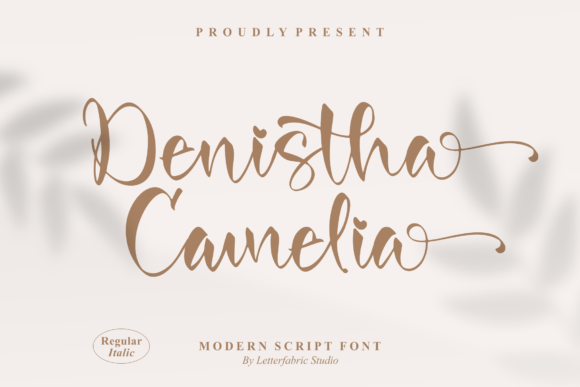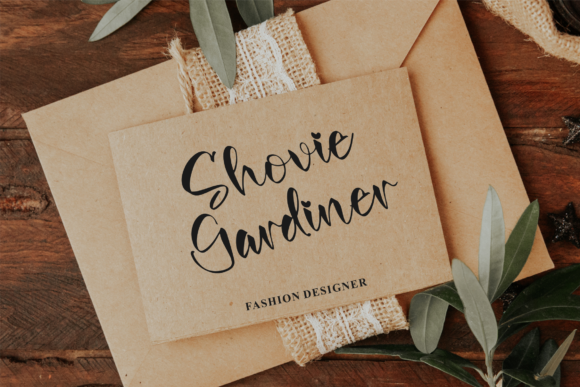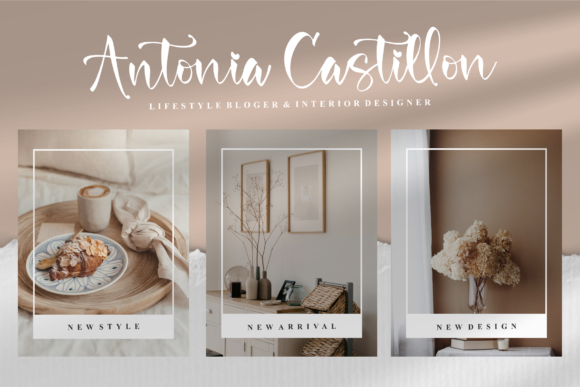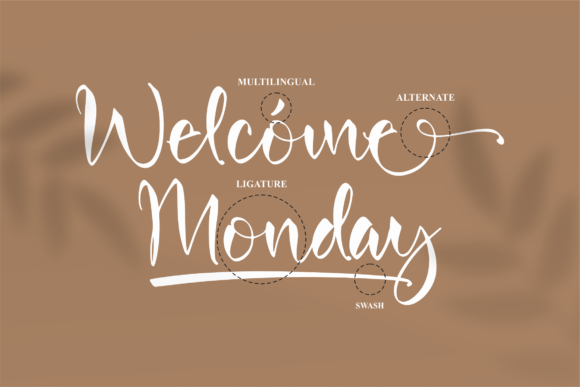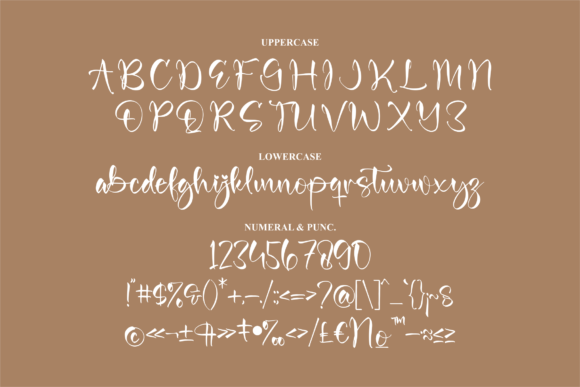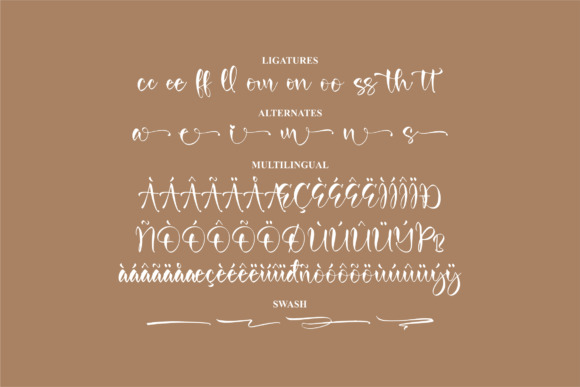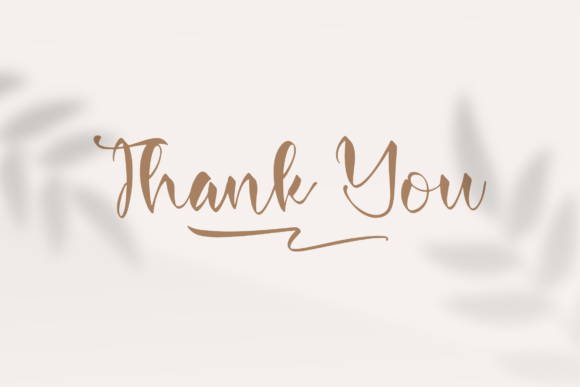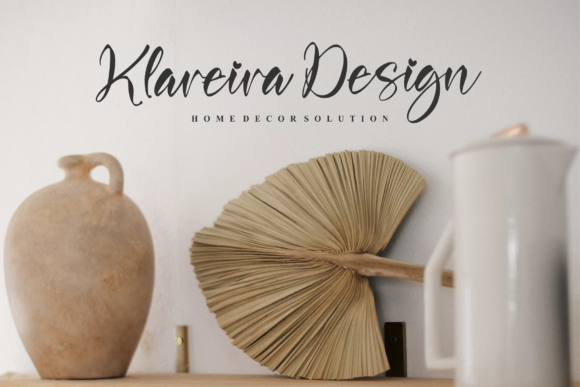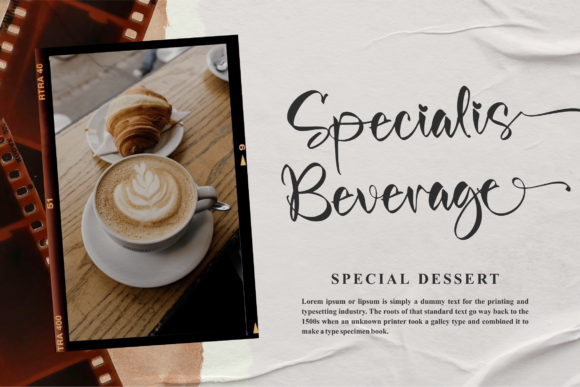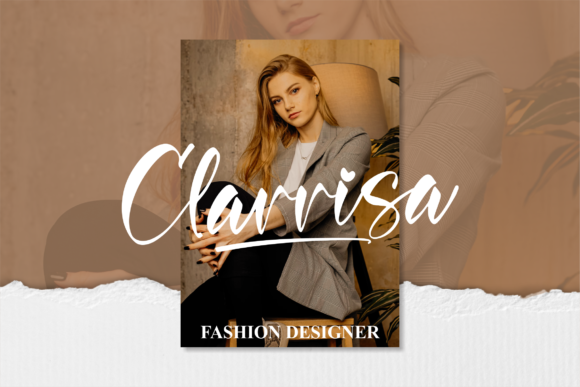
Denistha Camelia Font
About Denistha Camelia Font
Denistha Camelia is a beautiful and chic script font. It is suitable for logos, branding projects, homeware designs, product packaging, mugs, quotes, posters, shopping bags, t-shirts, book covers, name card, and all your other lovely projects that need a beautiful script taste. This font is PUA encoded which means you can access all of the glyphs and swashes with ease!